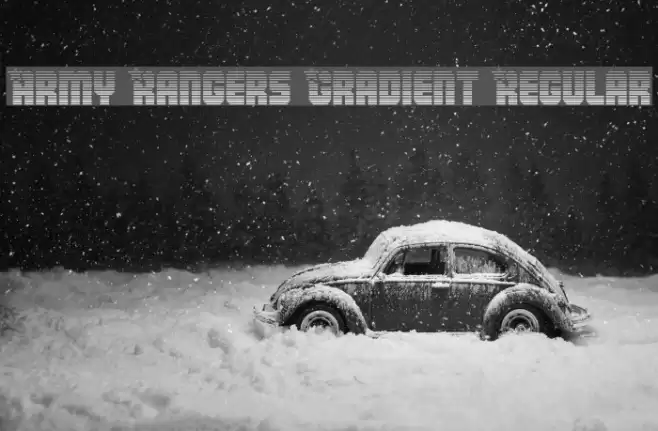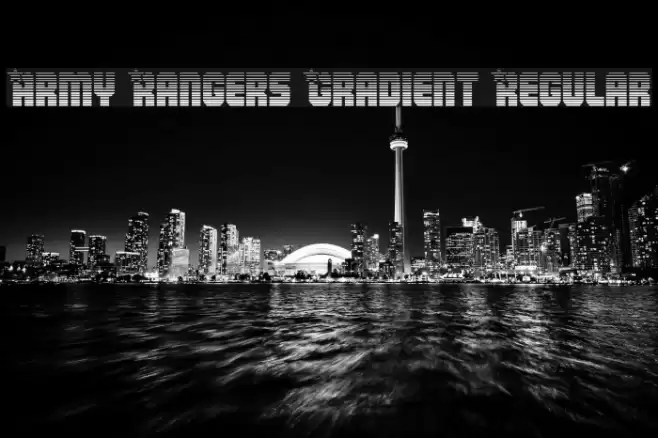
Army Rangers Gradient Regular Font
Army Rangers Gradient Regular Description
This font features a bold, geometric design with a distinct gradient effect created by horizontal lines. The characters are uppercase and lowercase, with a uniform width and a strong, impactful presence. The style is reminiscent of military or industrial themes, making it suitable for designs that require a robust and commanding look. The numbers and special characters maintain the same gradient pattern, ensuring consistency across all elements. The font's unique appearance is eye-catching and ideal for projects that need to convey strength and authority.
A bold, geometric font with a gradient effect, ideal for strong, impactful designs from Uncategorized fonts.
- Proposed Projects: Suitable for military-themed posters, industrial design projects, branding for sports teams, or any project needing a bold, authoritative look.